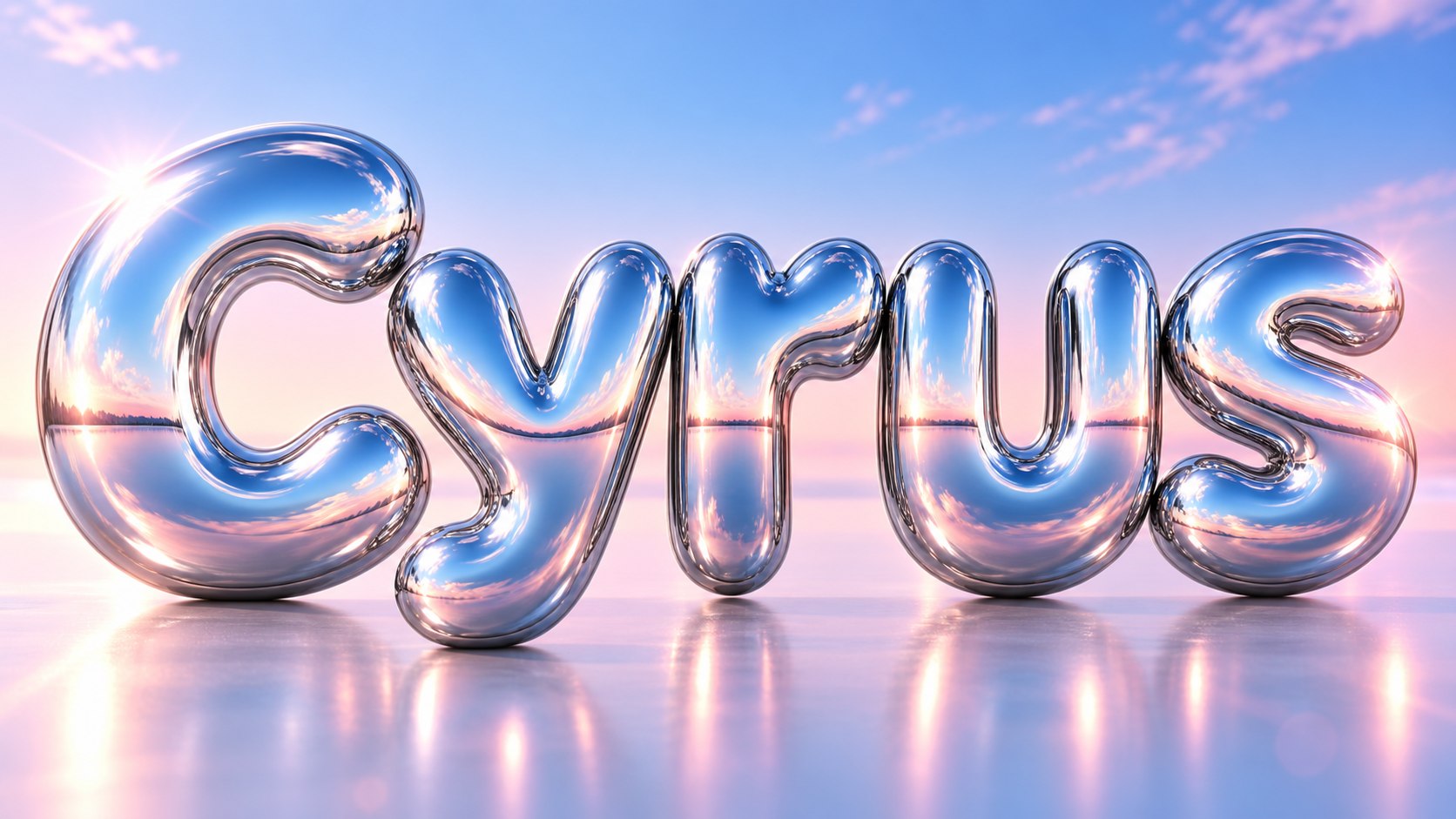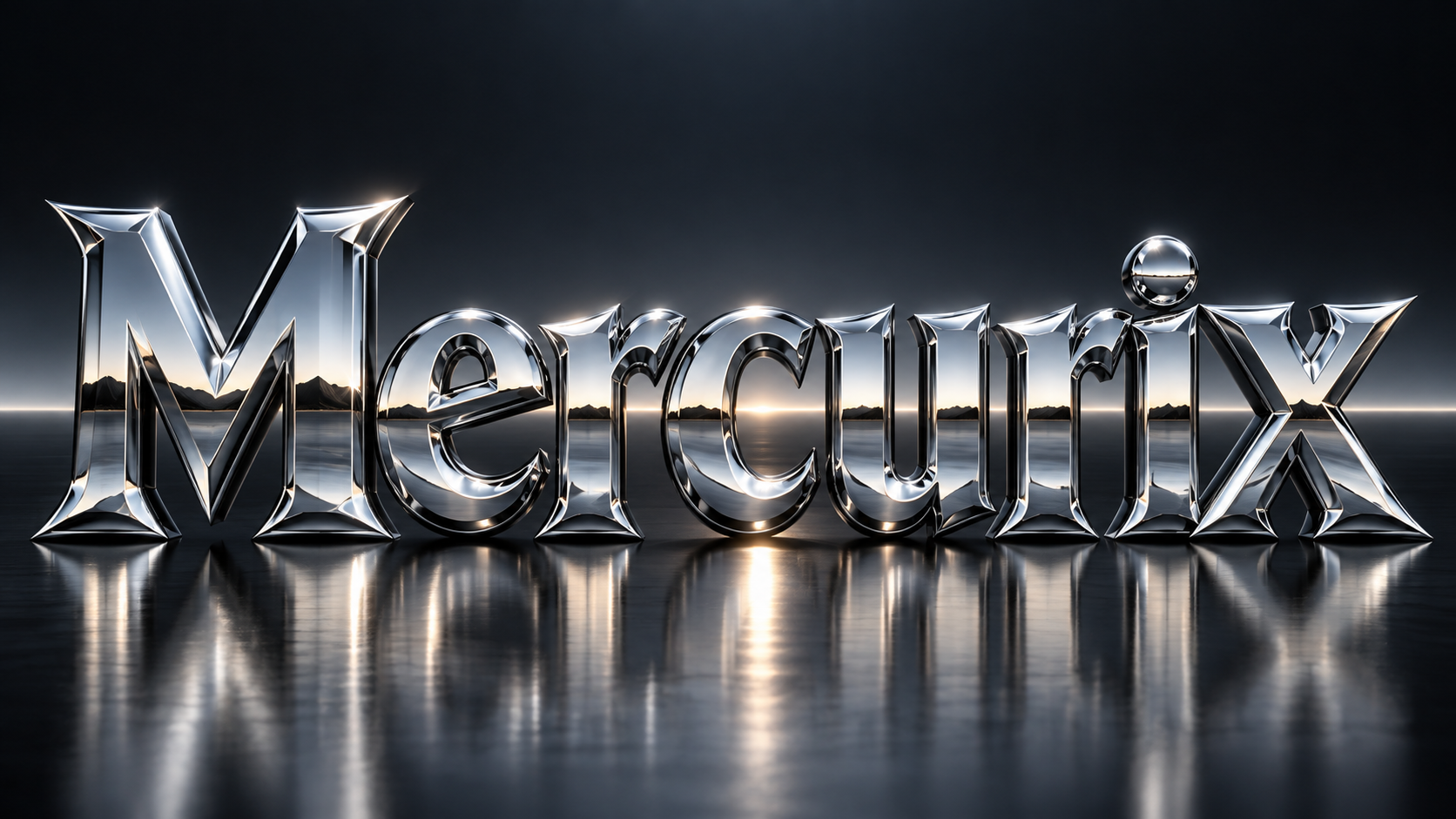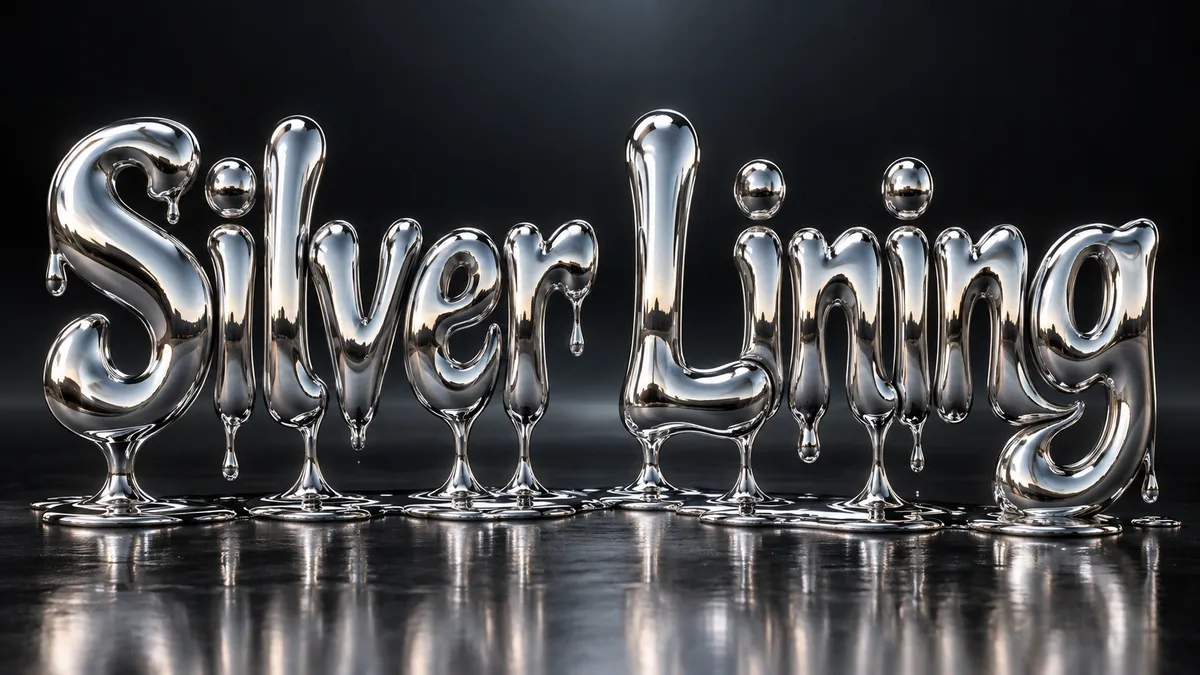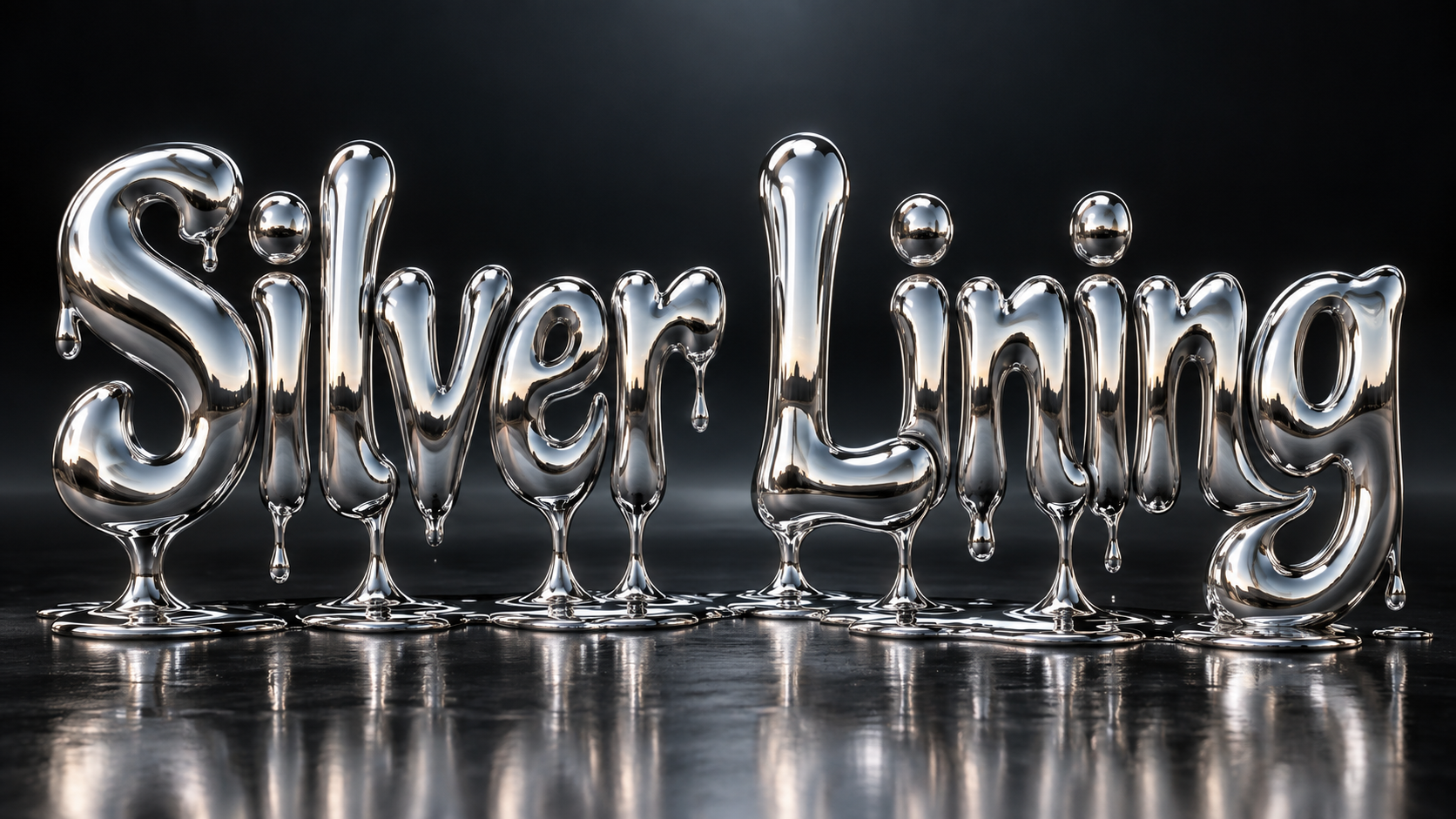
Mirror-finish liquid chrome that reflects everything around it. Y2K, beveled, or melting.
inflated rounded bubble letters in bright chrome reflecting a blue sky and pink horizon, glossy and playful
Chrome is the most reflective material a letter can be made of, and the Fontique chrome font generator leans all the way into it. The letters come back as liquid metal: an unbroken mirror surface, sharp horizon reflections sweeping across each stroke, and distorted highlights that bend around the curves. Nothing about it looks brushed or matte; it is pure polished chrome.
The chrome text effect has surged back with the Y2K revival, and the presets follow that range. Y2K Bubble gives you inflated rounded letters with a blue-and-pink horizon, Beveled Chrome adds hard-edged 3D facets in the classic 90s style, Liquid Drip lets the metal melt and pool, and Dark Chrome trades the bright sky for a moody black-and-silver reflection.
Chrome is defined by a perfect mirror finish and strong environment reflections, usually a sharp horizon line sweeping across the letters. Metallic text covers brushed steel, silver, and copper with visible grain and softer highlights. If you want the letters to look like liquid mirror, chrome is the right choice.
Y2K Bubble is the closest match, with inflated rounded letters reflecting a blue sky and pink horizon. Liquid Drip pushes further into the melted, surreal direction popular on streetwear and music artwork, while Beveled Chrome nails the sharper late-90s logo aesthetic.